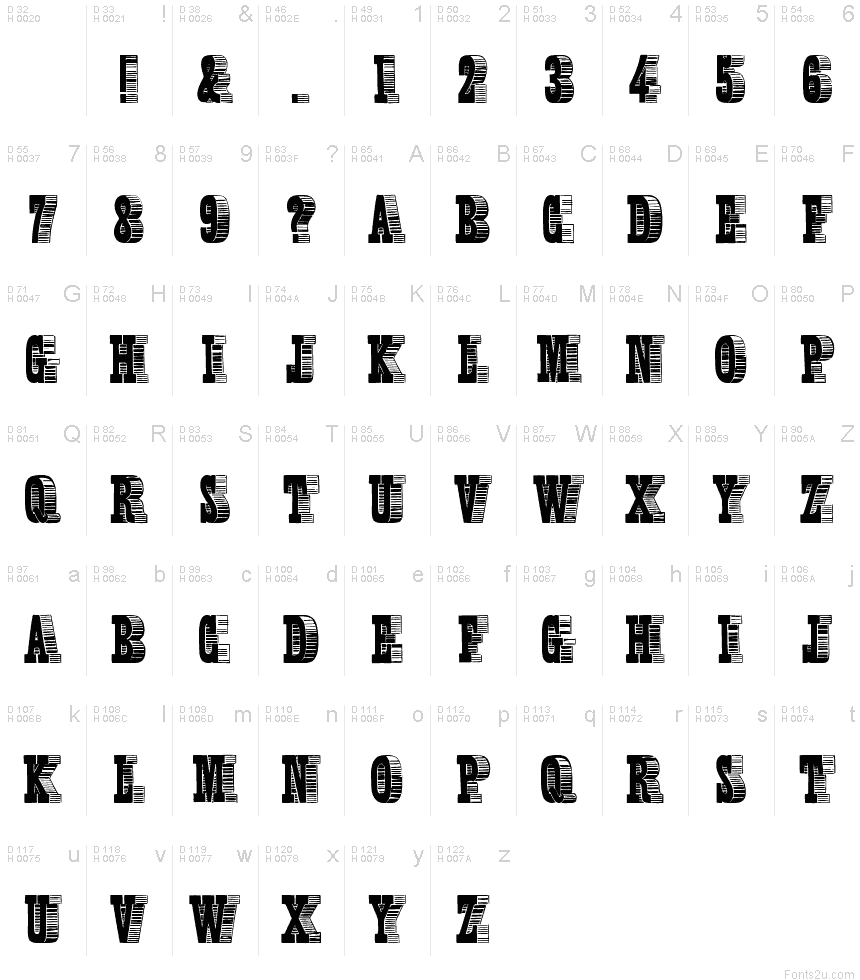
Shady Characters Medium
Shady Characters Medium by West Wind Fonts is a free Western 3D display font with the swagger of old poster lettering. The letters are tall, blocky, and heavily serifed, with striped side shading that gives them a carved, saloon-sign depth instead of a slick modern effect.
It fits best where you want a frontier voice up front: poster headlines, whiskey labels, rodeo flyers, festival graphics, title cards, and big chapter openers. As a free font, it works especially well for short words and cover lines, since the deep shadowing and broad tops make the caps feel bold, theatrical, and a little rough around the edges.